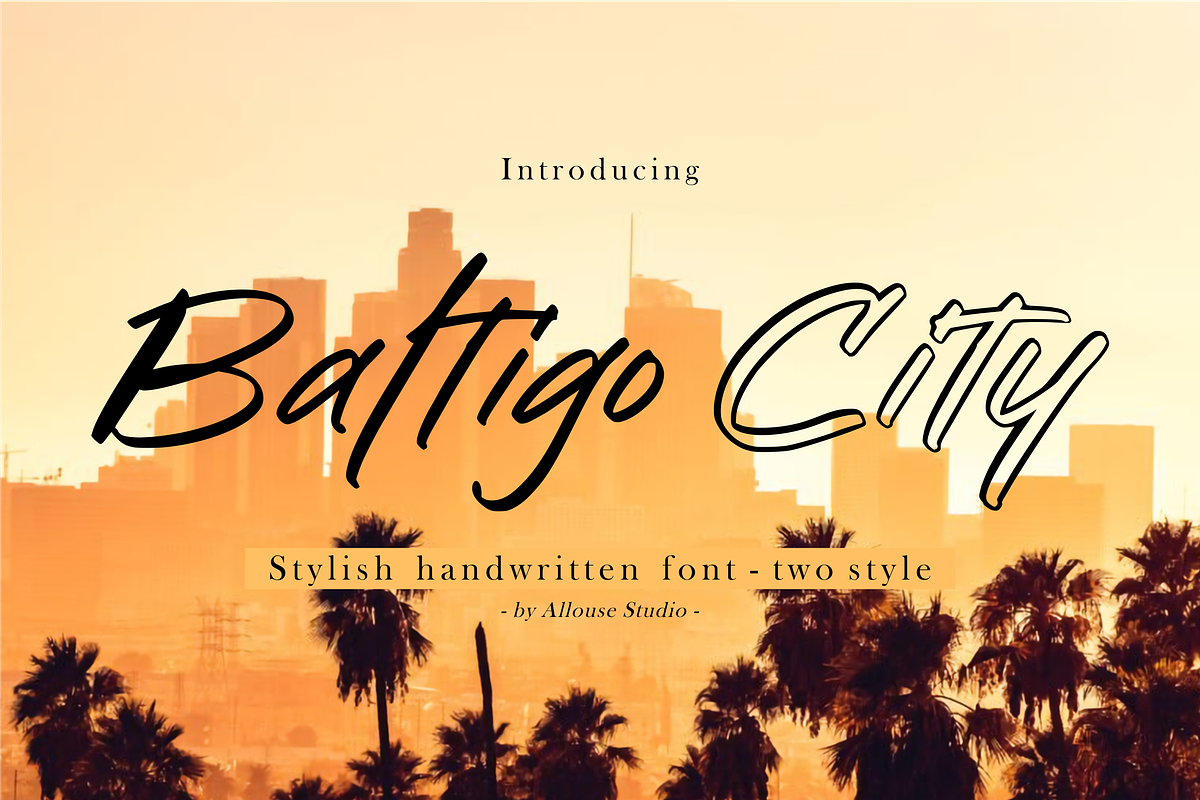
Baltigo City A Stylish Urban Font Free Download
Baltigo City – A Stylish Urban Font Free Download is a sleek, edgy typeface designed to capture the energy of modern city life. With bold strokes, clean lines, and a trendy street-style flair, this font is perfect for urban fashion branding, music covers, event flyers, and lifestyle blogs that demand attention.
Baltigo City – A Stylish Urban Font Free Download brings a cool, confident vibe to your projects. Its contemporary look makes it ideal for logos, headlines, posters, and social media graphics targeting a stylish, youthful audience. Whether you're working in streetwear, entertainment, or creative advertising, this font delivers impact and style.